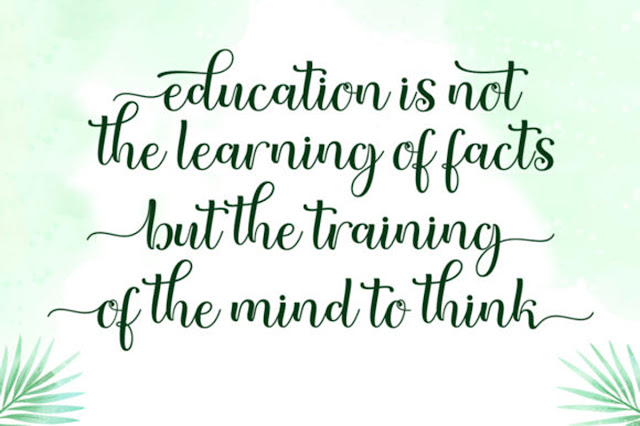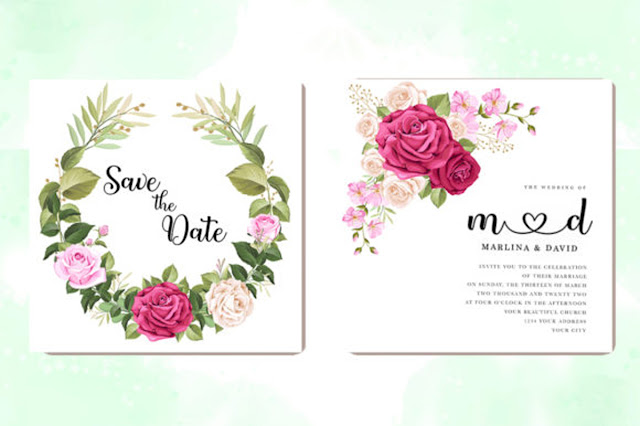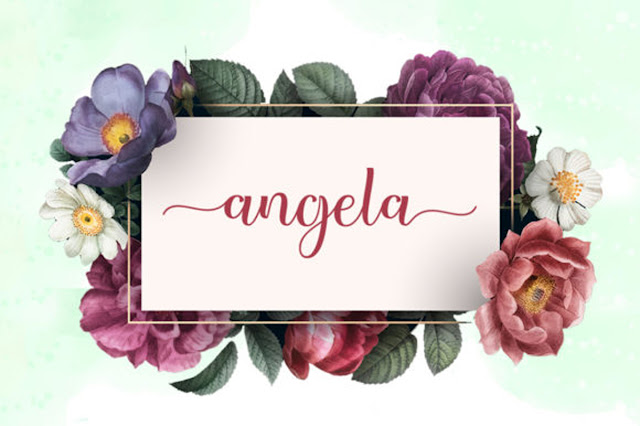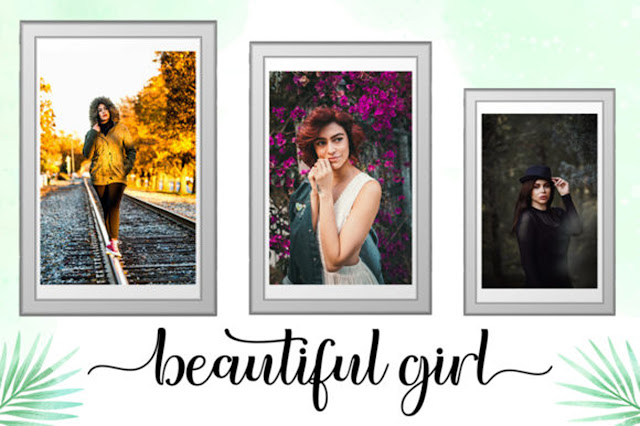
Sweet Lady Font
Free Download Sweet Lady Font with high speed direct link. Sweet Lady feels equally charming and elegant. It looks stunning on wedding invitations, thank you cards, quotes, greeting cards, logos, business cards and every other design which needs a handwritten touch.
This font is PUA encoded which means you can access all of the glyphs and swashes with ease! It features a varying baseline, smooth lines, gorgeous glyphs and stunning alternates.